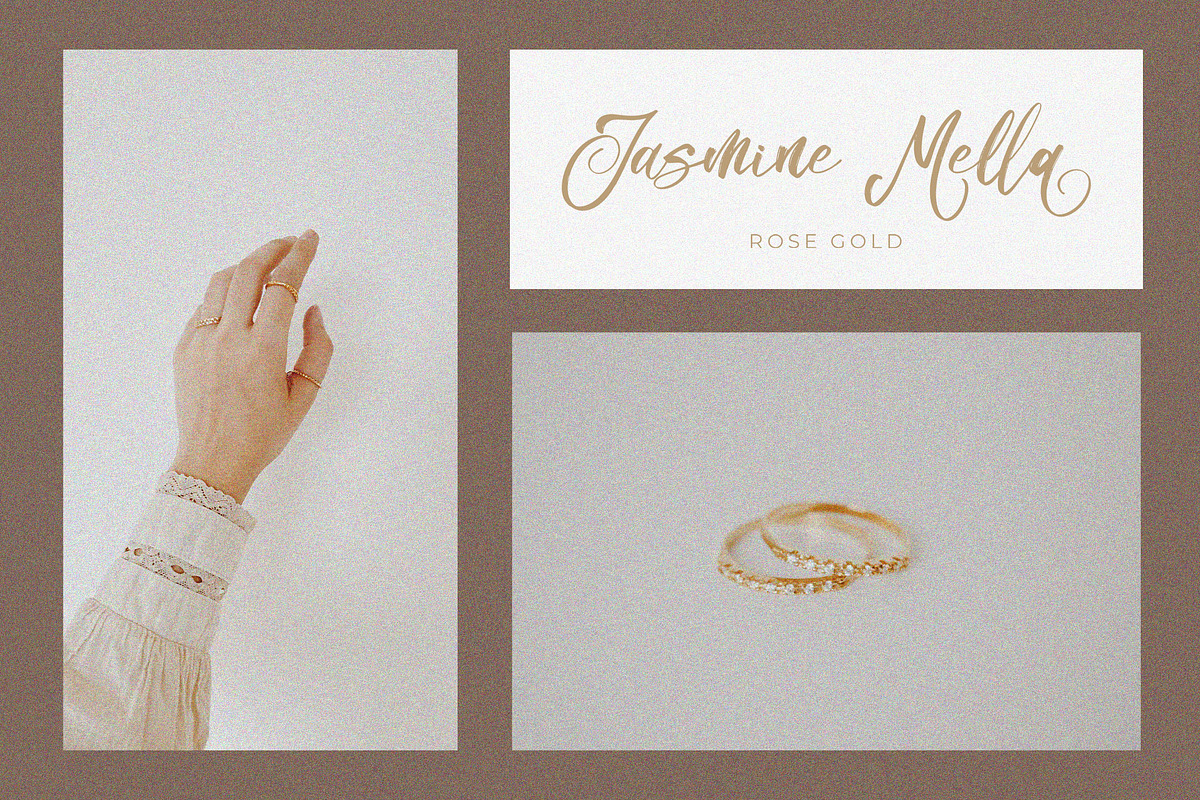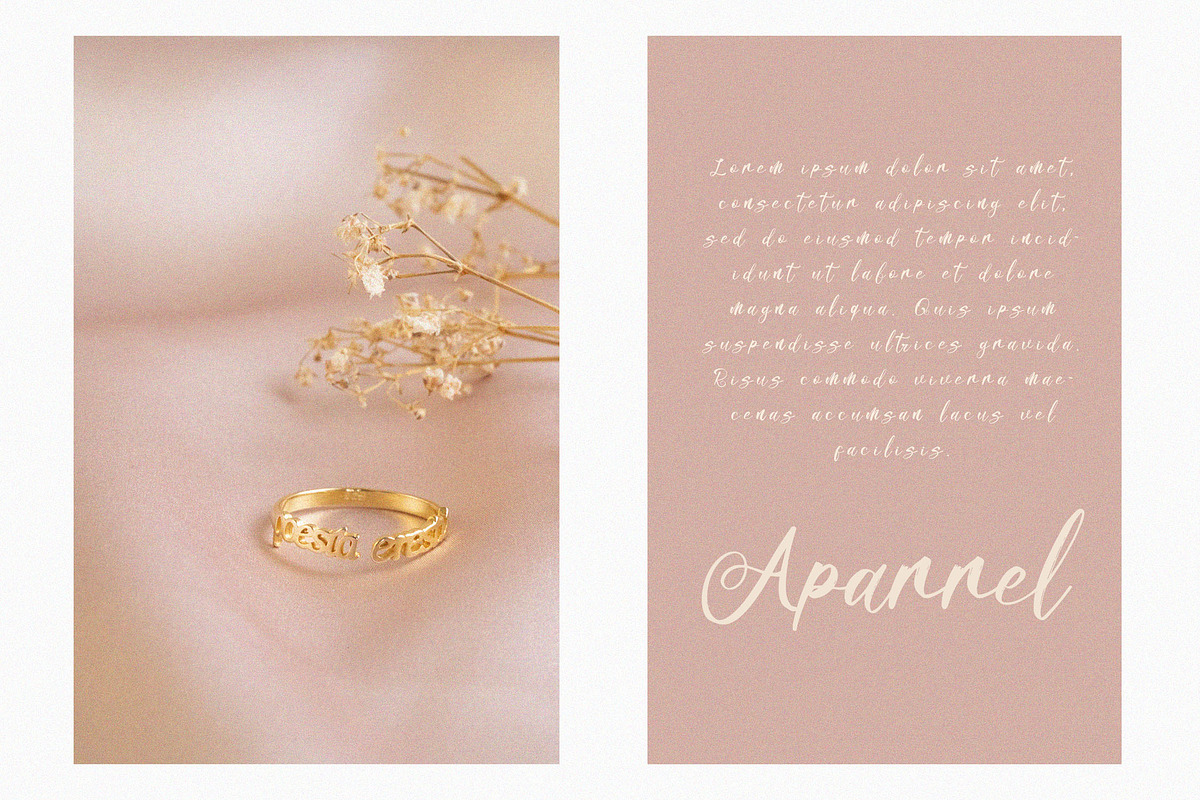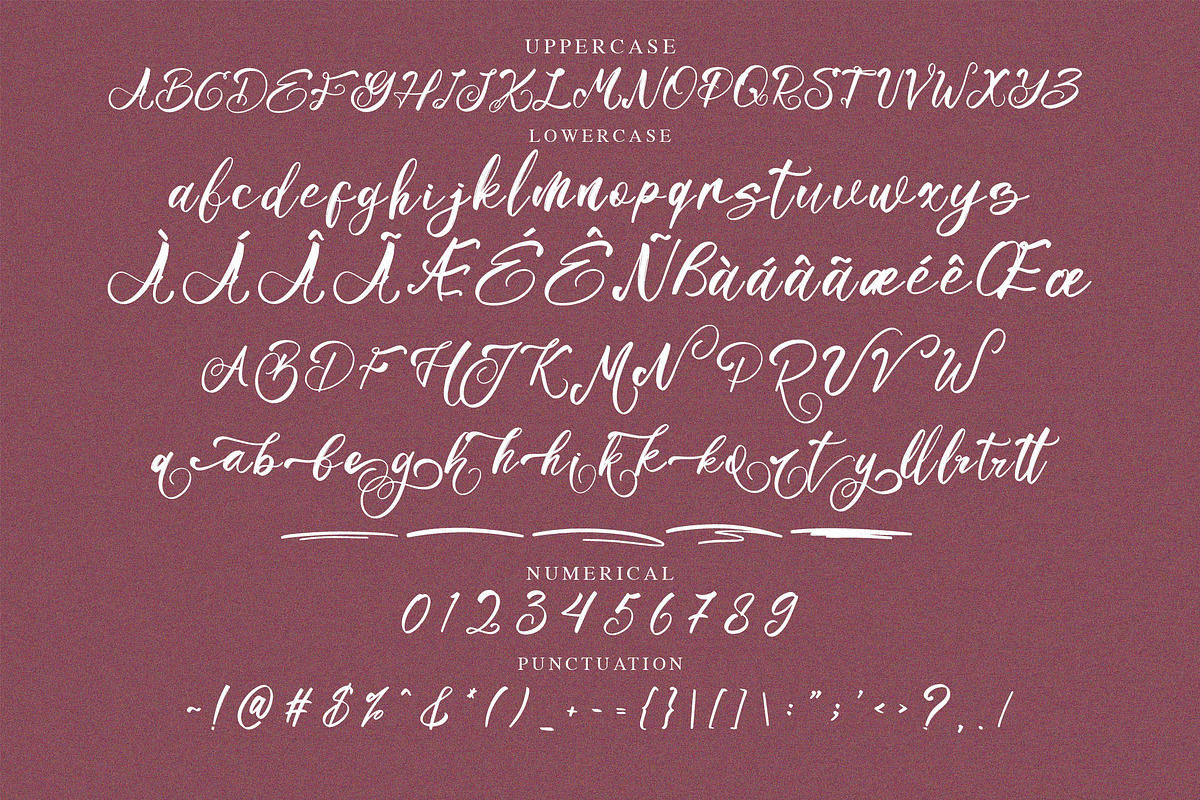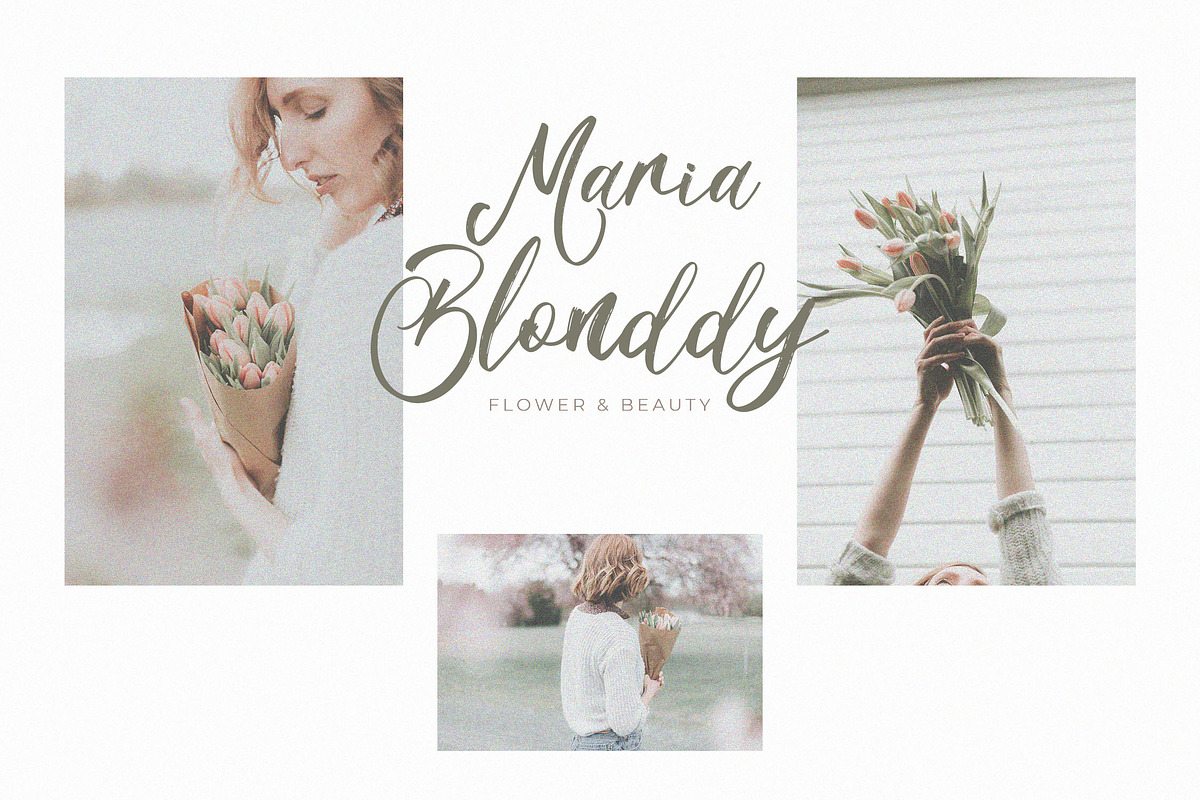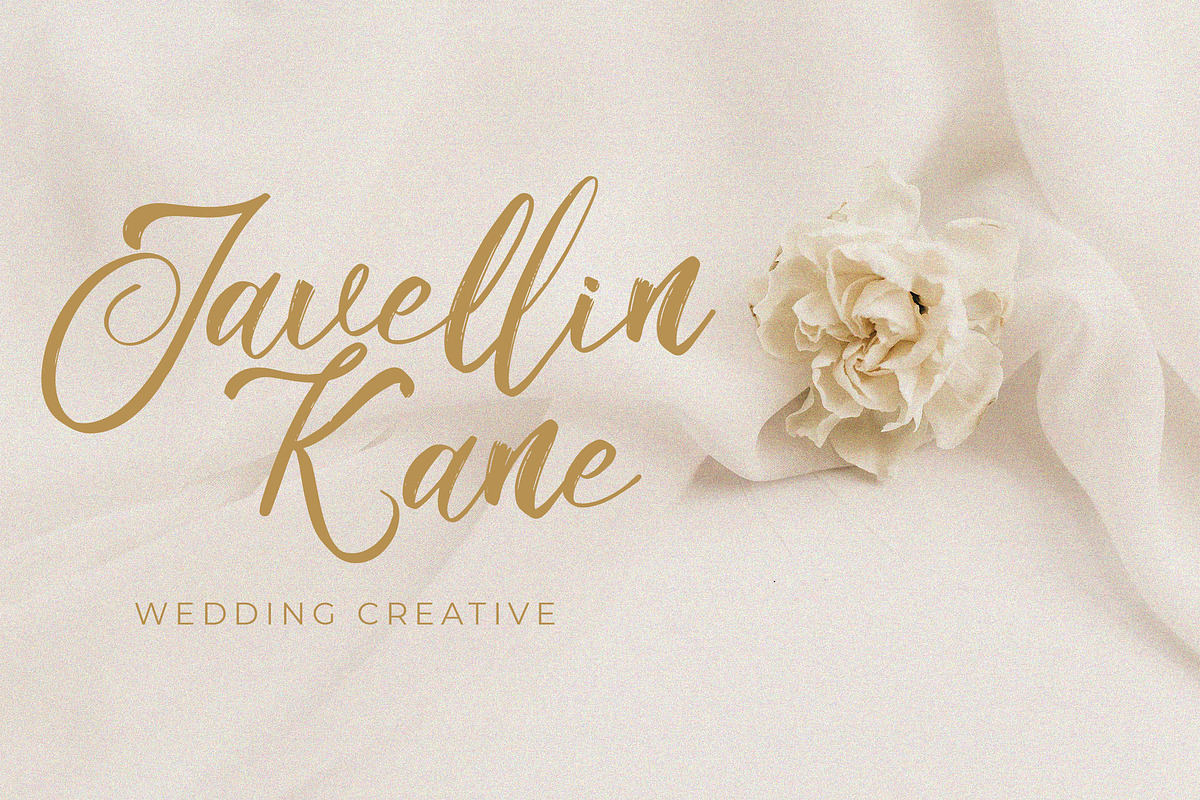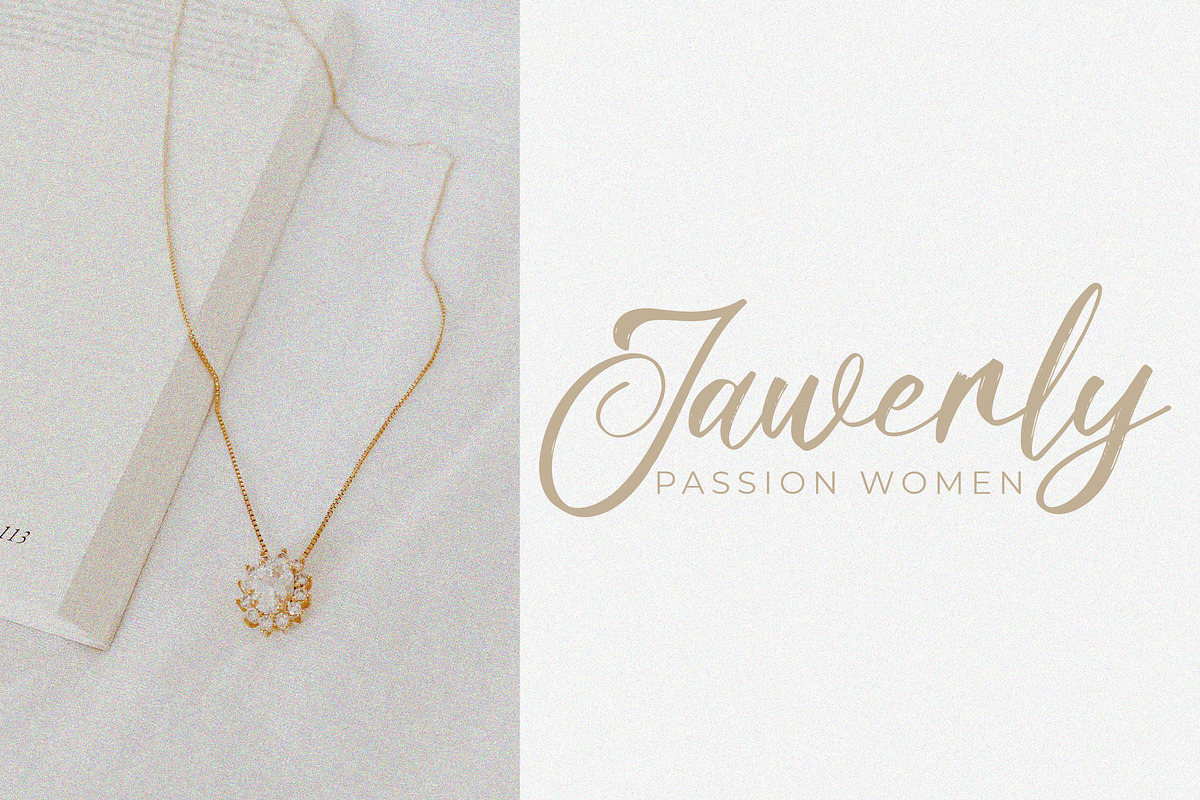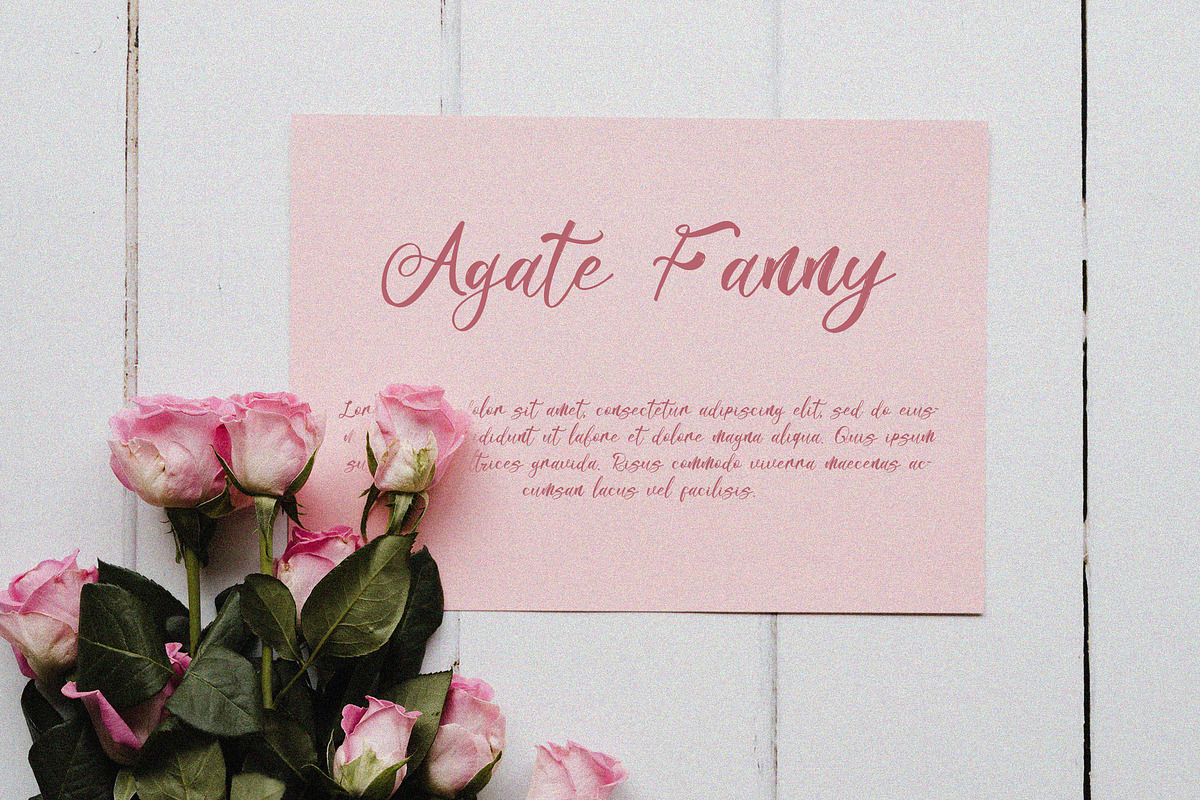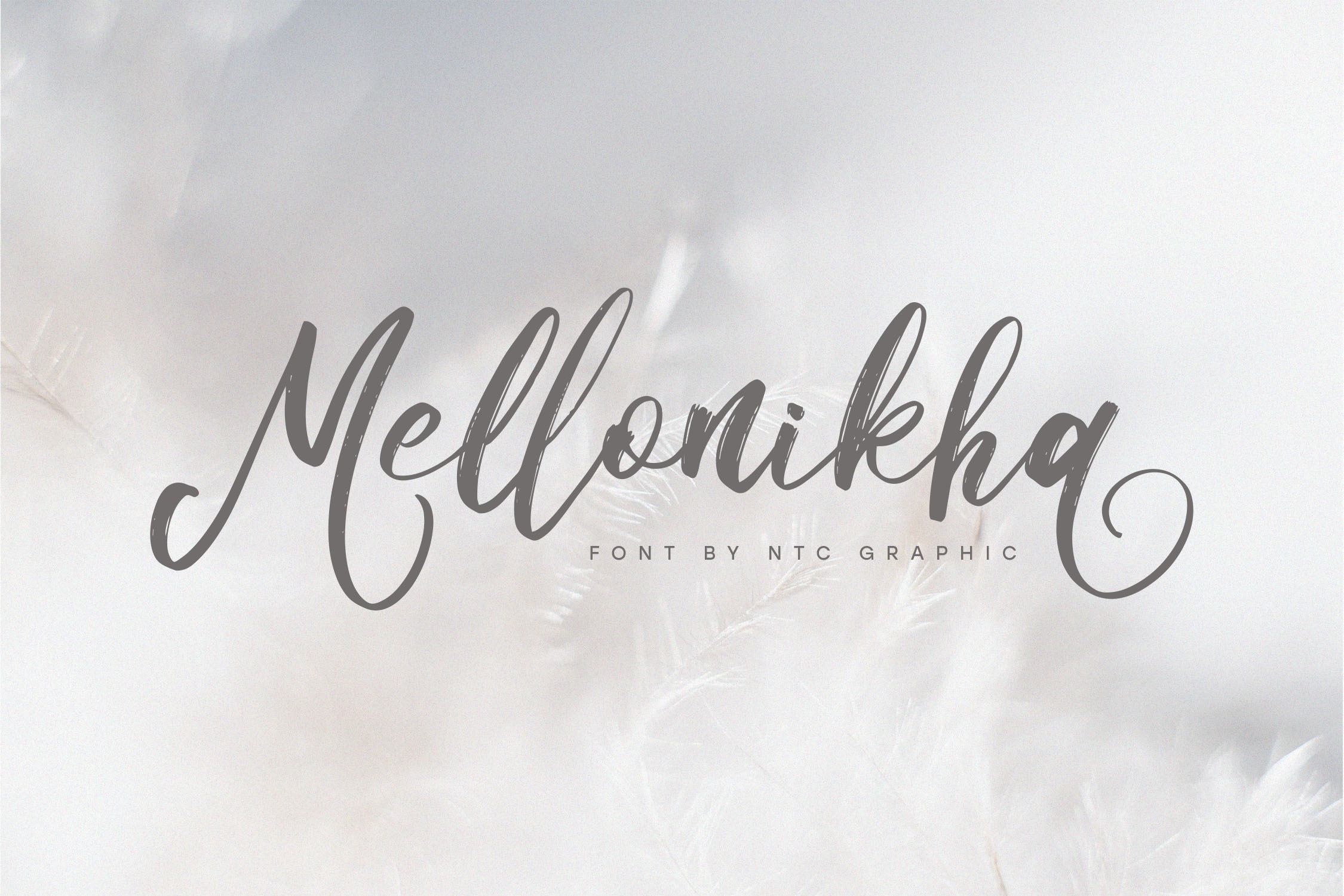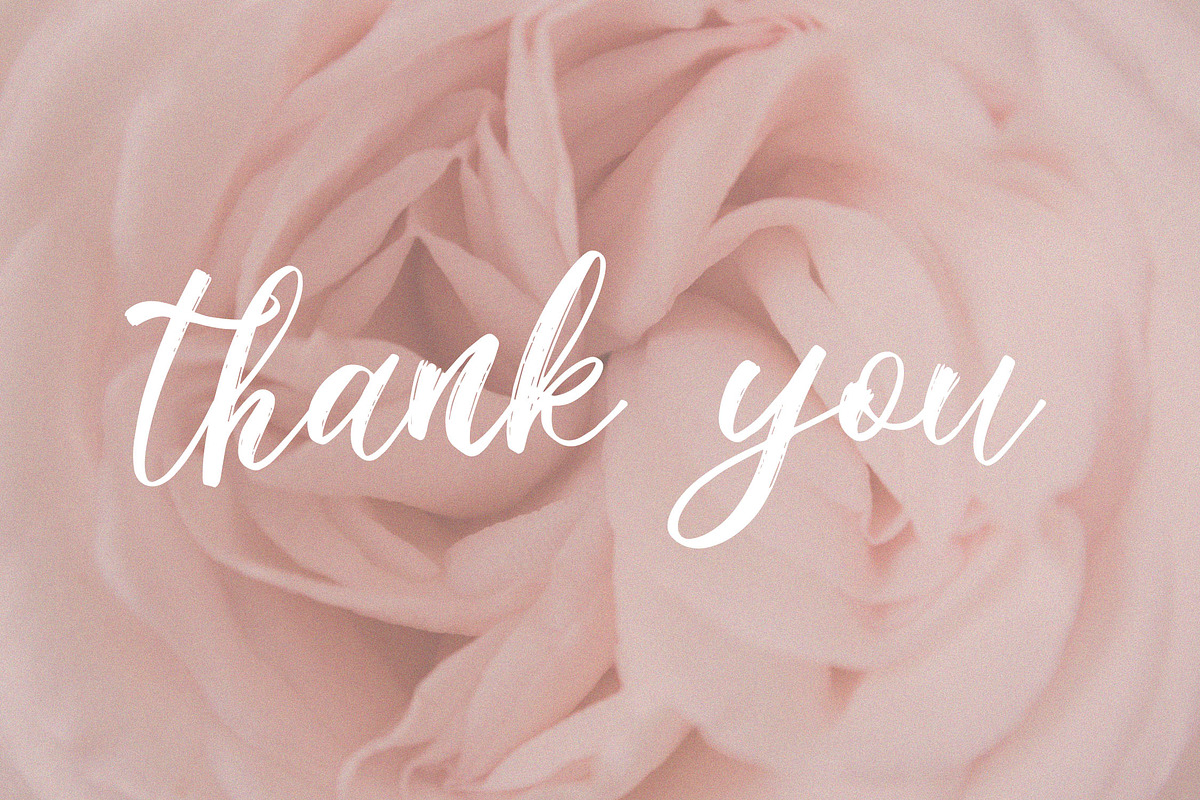
Mellonikha Brush Script Font
Mellonikha is a beautiful brush script font with feminine style. Is a font style that is made with scratches and curvature shapes font characters are very beautiful. Can be applied to support the graphic appearance of the product to be more attractive and unique.
- Stylistic Alternate